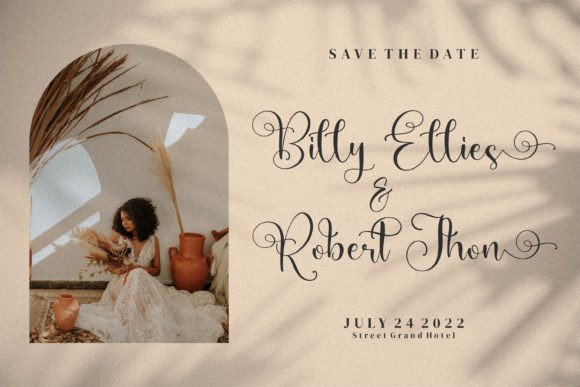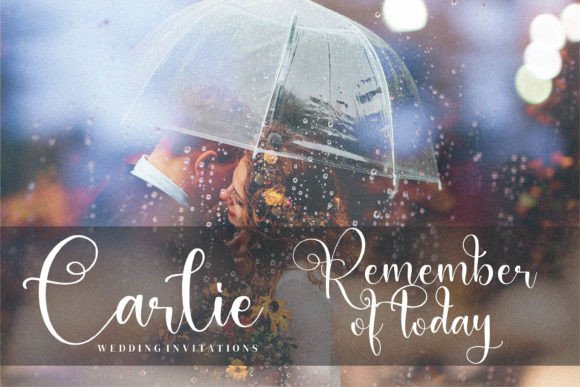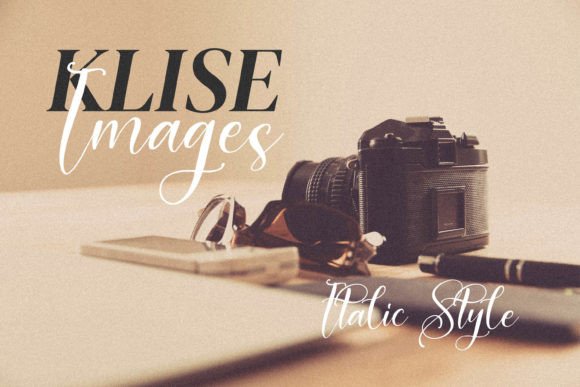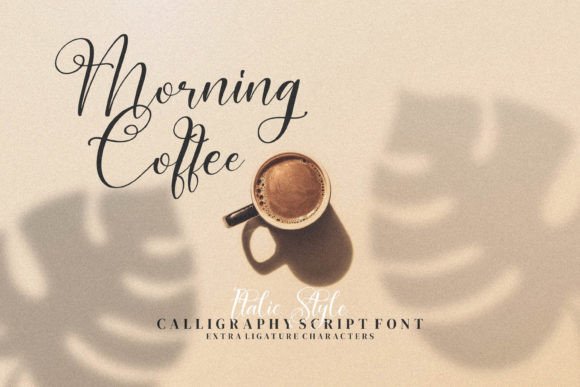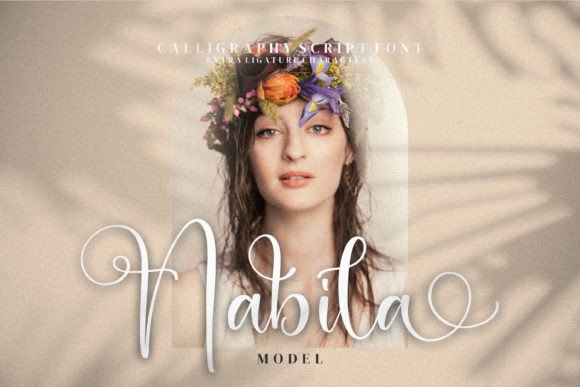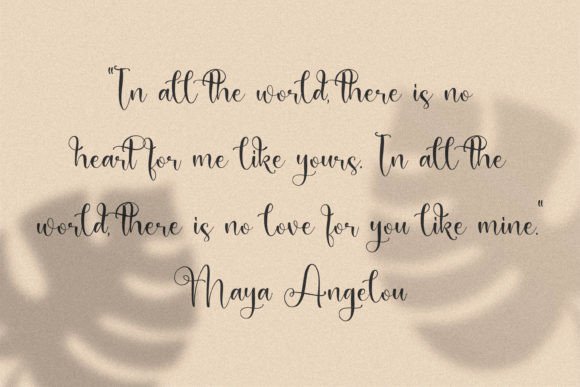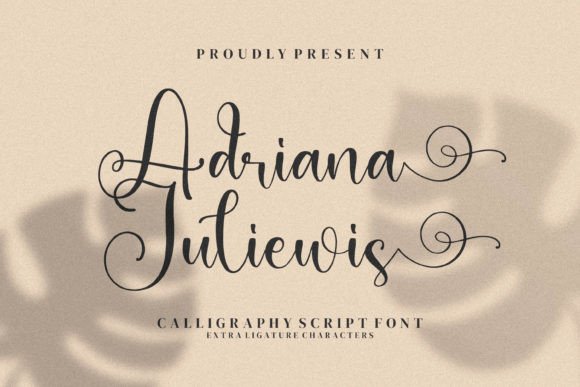
Adriana Juliewis Font: A Designer’s Dream
The Adriana Juliewis font is a stunning calligraphy script font that’s perfect for luxury projects. Its elegant and refined strokes make it suitable for a wide range of applications, including:
- Logos and branding projects
- Homeware designs and product packaging
- Mugs, quotes, posters, and shopping bags
- T-shirts, book covers, name cards, and invitation cards
- Greeting cards, labels, and photography watermarks
- Special events and luxury projects
- ✨ Elegant and refined strokes
- 💫 Perfect for luxury projects and high-end branding
- 🎨 Highly versatile and adaptable
While the Adriana Juliewis font is exceptional, there are a few minor limitations to consider:
- ⚠️ May not be suitable for body text or long-form content
- 🤔 Limited use of uppercase letters, but this adds to its elegance
- Experiment with the OpenType features, such as swashes and stylistic alternates, to add a touch of elegance to your design.
The Adriana Juliewis font was inspired by the works of renowned calligraphers and typographers. Its creator aimed to craft a font that would evoke the elegance and sophistication of luxury brands. The result is a stunning calligraphy script font that’s perfect for high-end designs.
Q: What is the Adriana Juliewis font?
A: The Adriana Juliewis font is a calligraphy script font designed for luxury projects and high-end branding.
Q: Is the Adriana Juliewis font PUA encoded?
A: Yes, the Adriana Juliewis font is PUA encoded, making it easy to access glyphs and swashes.